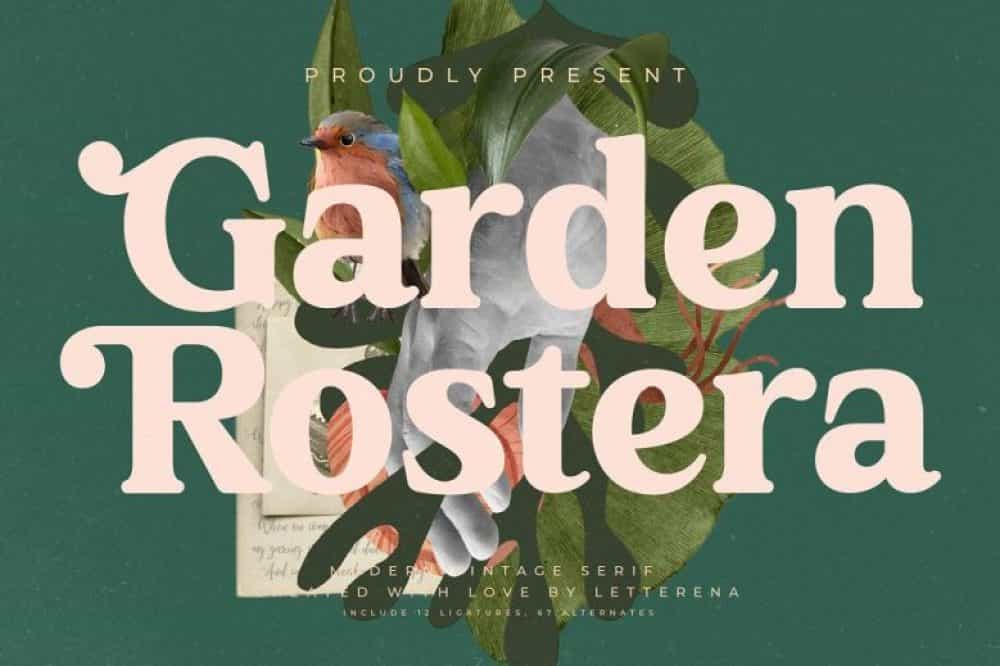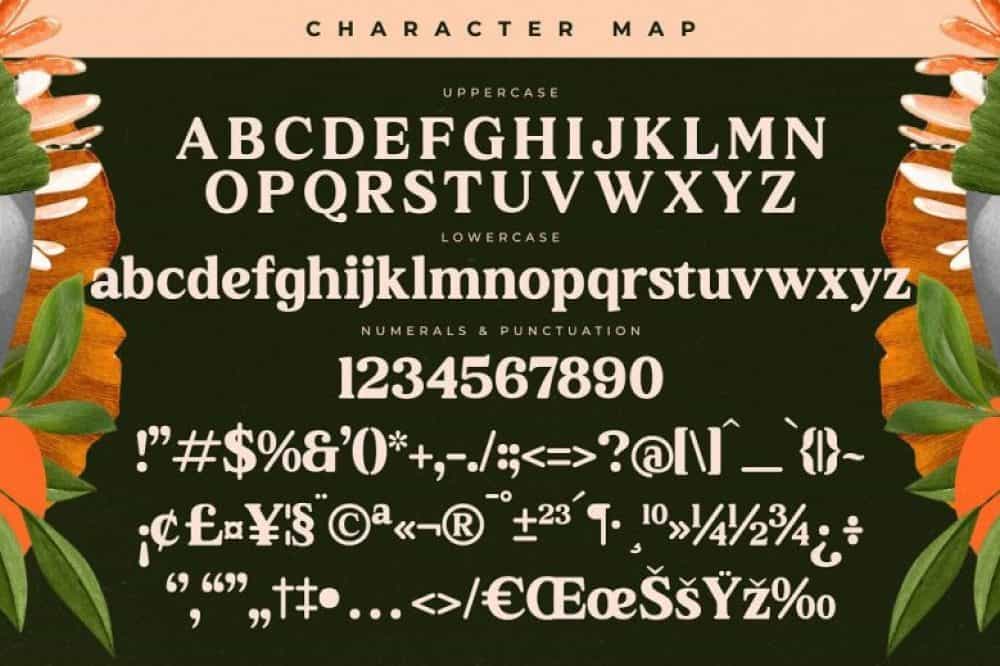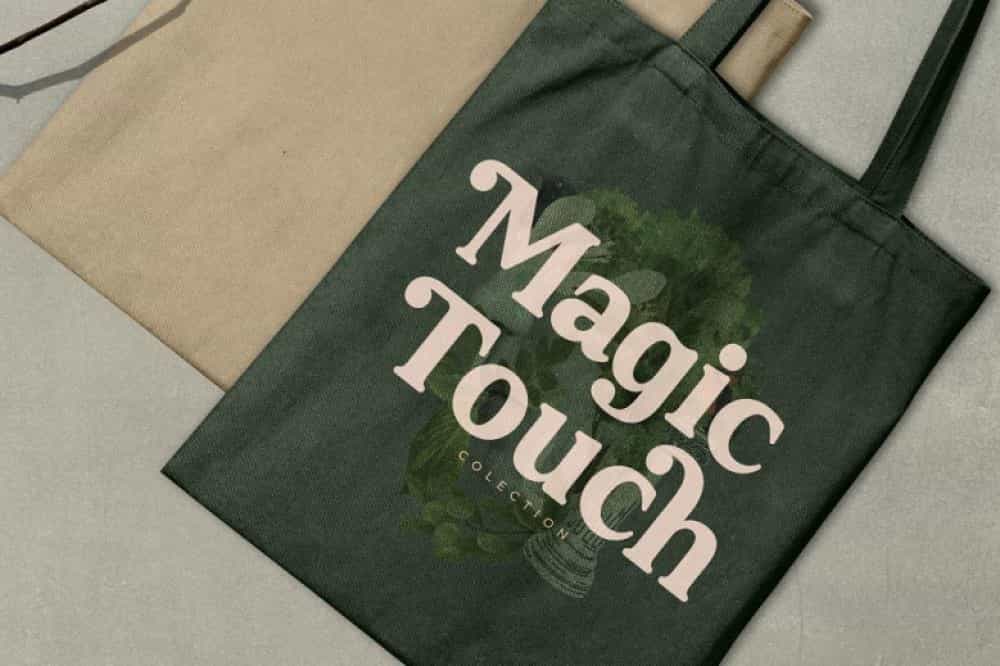
Garden Rostera Font
Garden Rostera is a clean and minimalistic serif font with elegant and refined features for today’s corporate designs. Tastefully designed for the editorial, high-end branding, and web typography niches, the typeface’s elegance brings value to any project. If you are in for some contemporary charm in your crafting works, then opt for Garden Rostera.